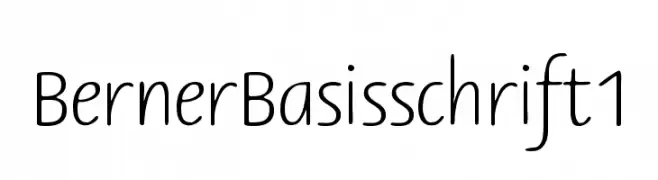
• Lexend Zetta Regular
A modern, geometric sans-serif font with excellent readability.
• Pencil Filled Regular
A bold, decorative font with a pencil-like fill and thick outlines.
• Schulkursiv
A smooth, cursive handwritten font with a personal touch.
• BernerBasisschrift2
A modern, clean font with a handwritten touch and smooth curves.
• BernerBasisschrift1
A clean, simple font with rounded characters and consistent stroke width.
• Kiddos
A playful, hand-drawn font with bold, rounded letters and a whimsical style.
• braille pinboard hc
A tactile Braille system with raised dot patterns for accessibility.
• braille latin hc
A modern font combining Braille patterns with Latin characters for a tactile and visual experience.
• braille grid hc
A Braille-inspired geometric dot grid font.
• Braille pixel hc
A pixelated Braille-inspired font with a minimalist and digital aesthetic.